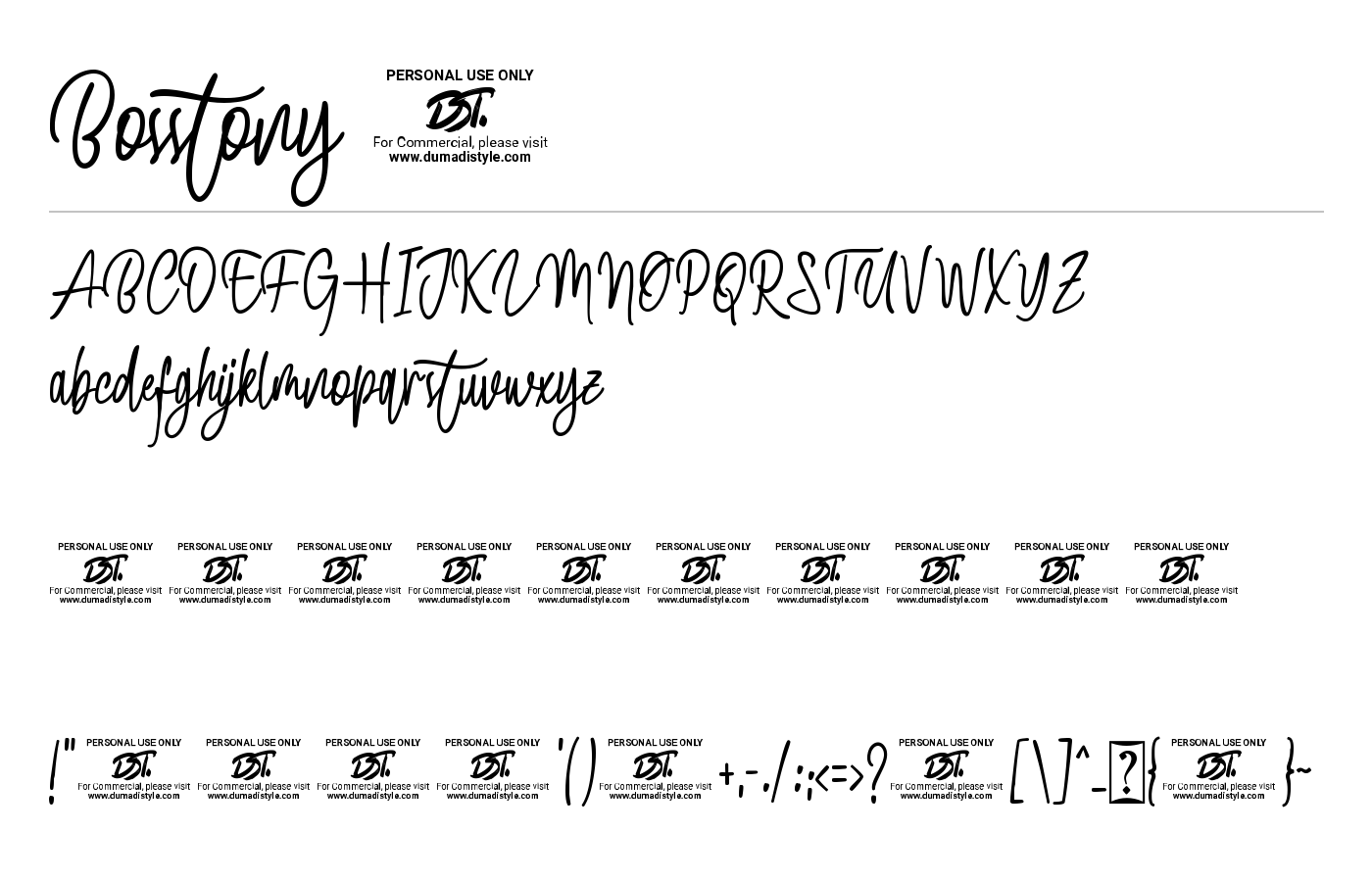
Bosstony 2 is a playful and elegant handwritten script font that features tall, slender letterforms with smooth, flowing strokes and a natural, casual feel. Its thin weight and airy spacing make it ideal for creative projects that need a personal, stylish touch, such as branding, invitations, and social media graphics. This font works best in designs that want to convey charm and approachability while maintaining a refined aesthetic.
Bosstony 2 Font
About Bosstony 2 Font